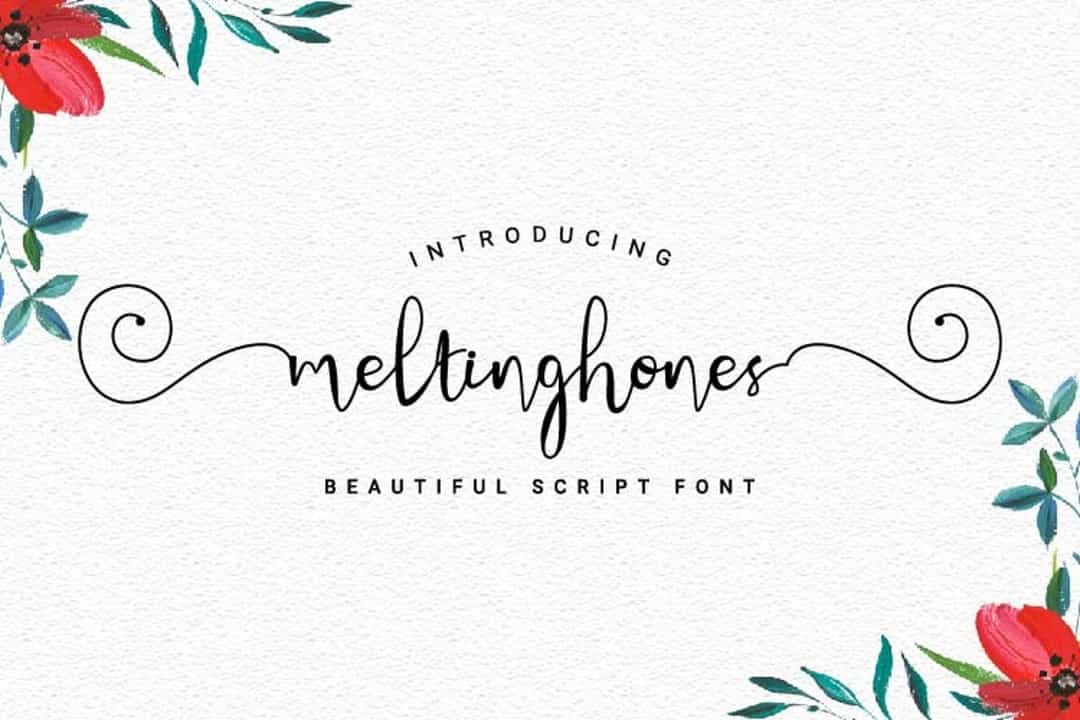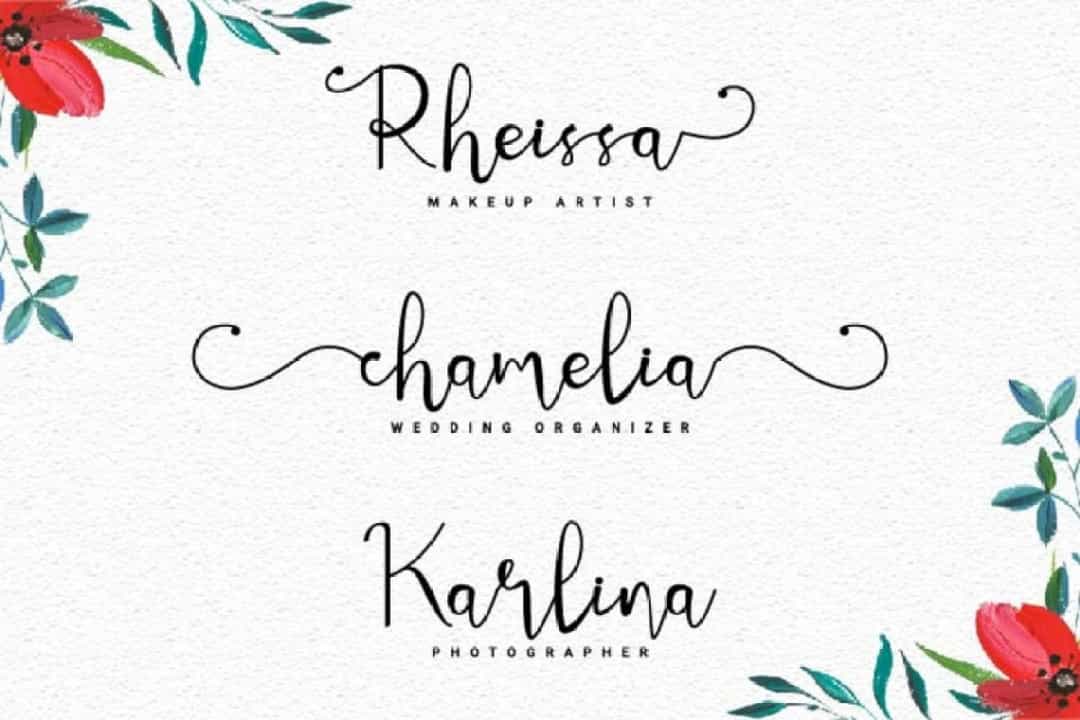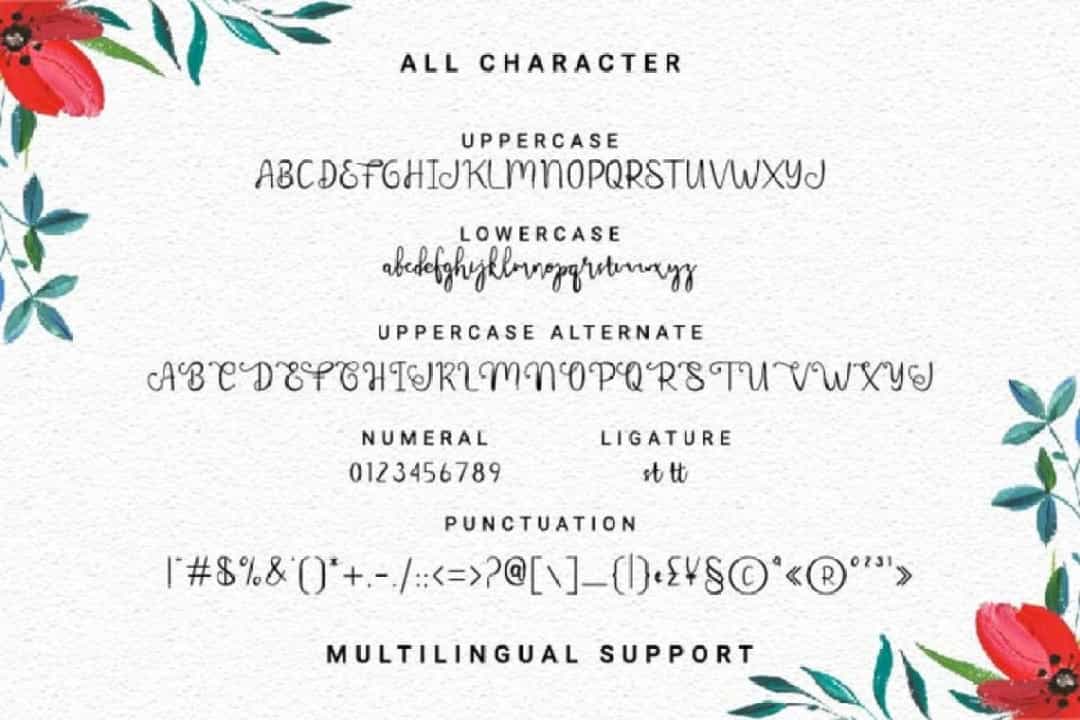
Meltinghones is a beautiful font that is made to cater for your needs in your project. As a multilingual platform, it can be employed in both online and offline context, for instance in salons and boutiques, or on wedding invitations, business cards, photography watermarks and creative posts – and much more!